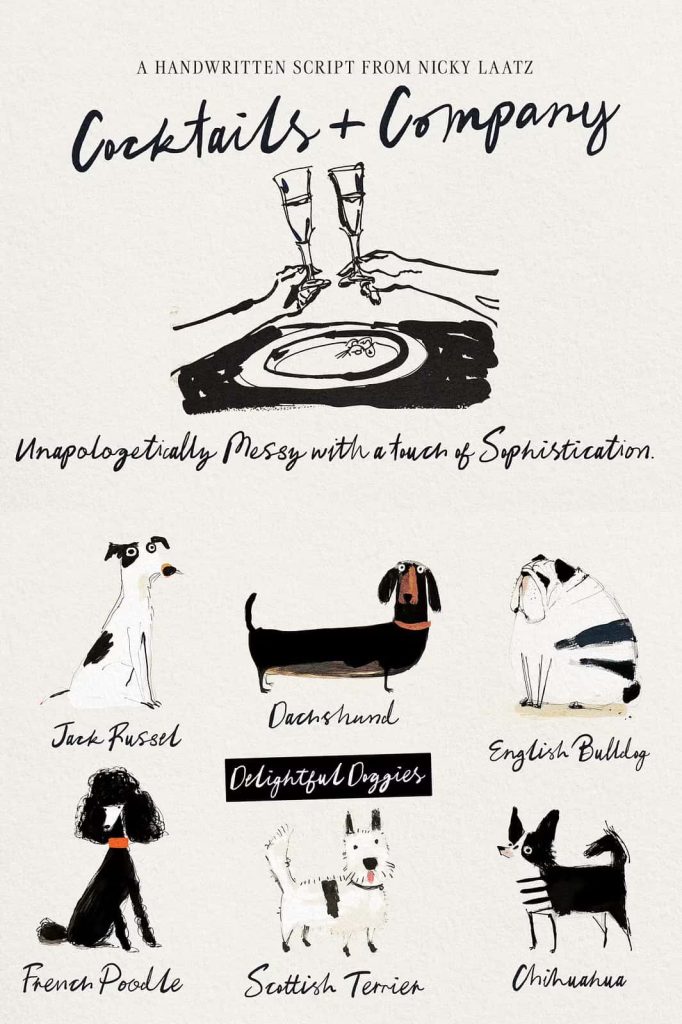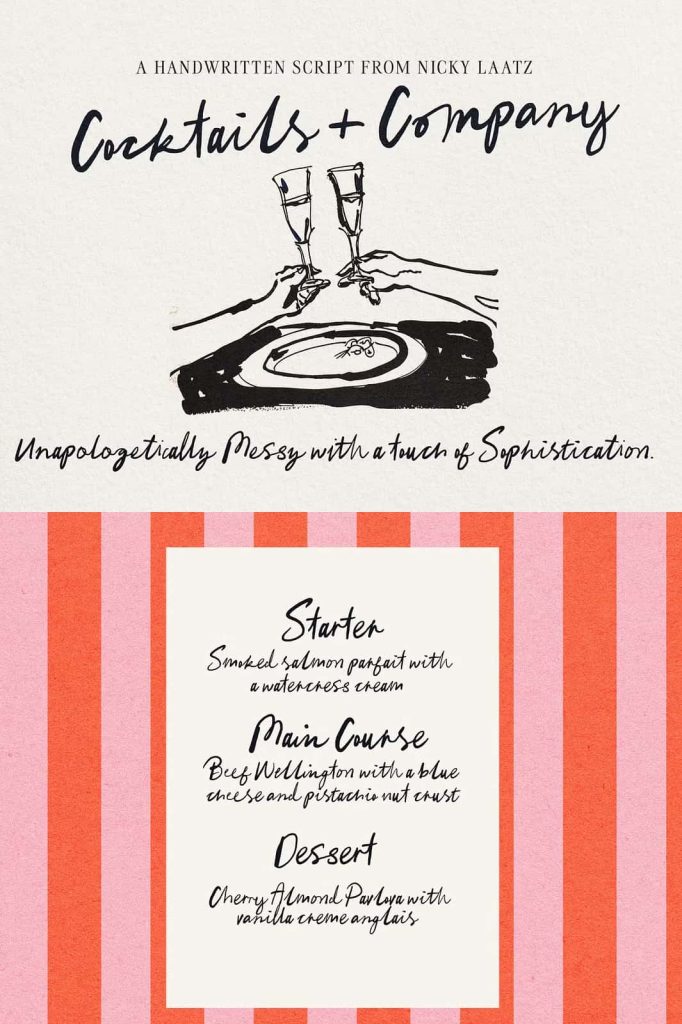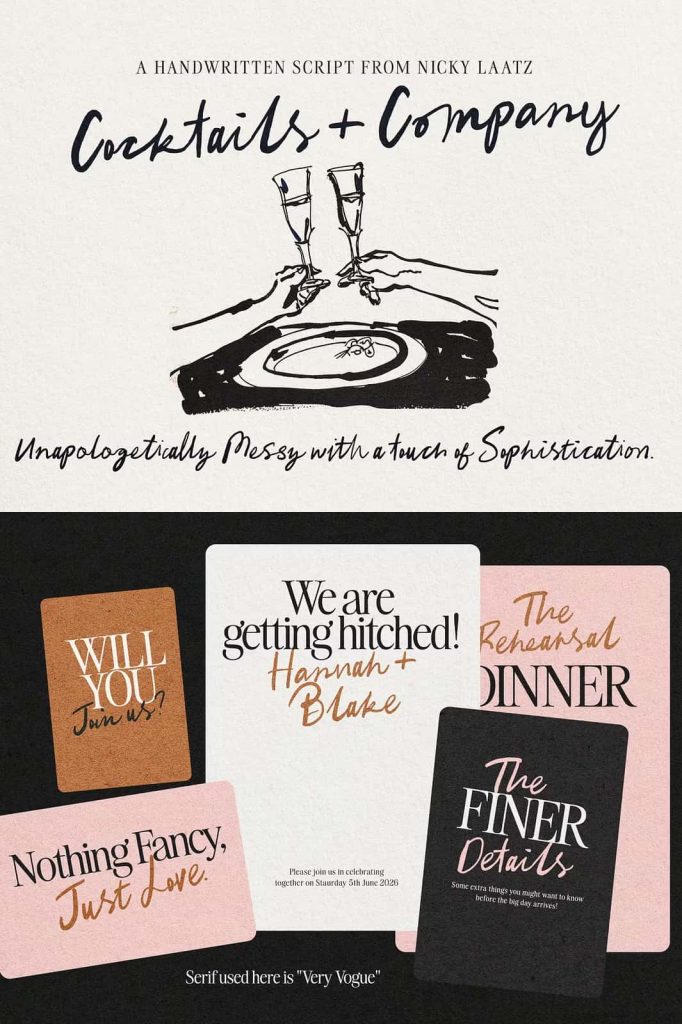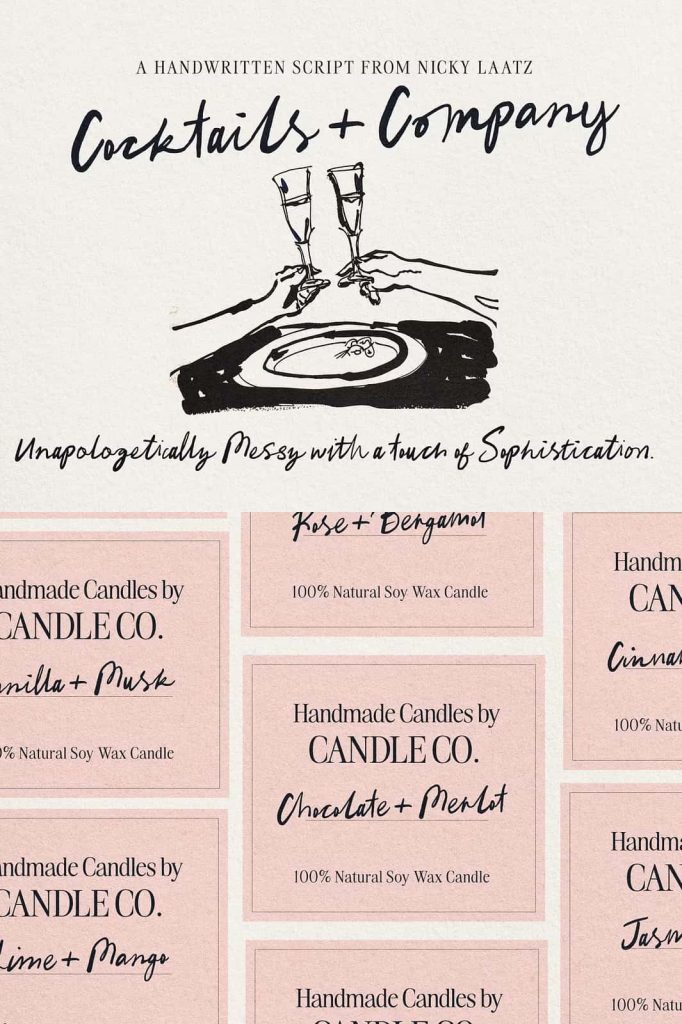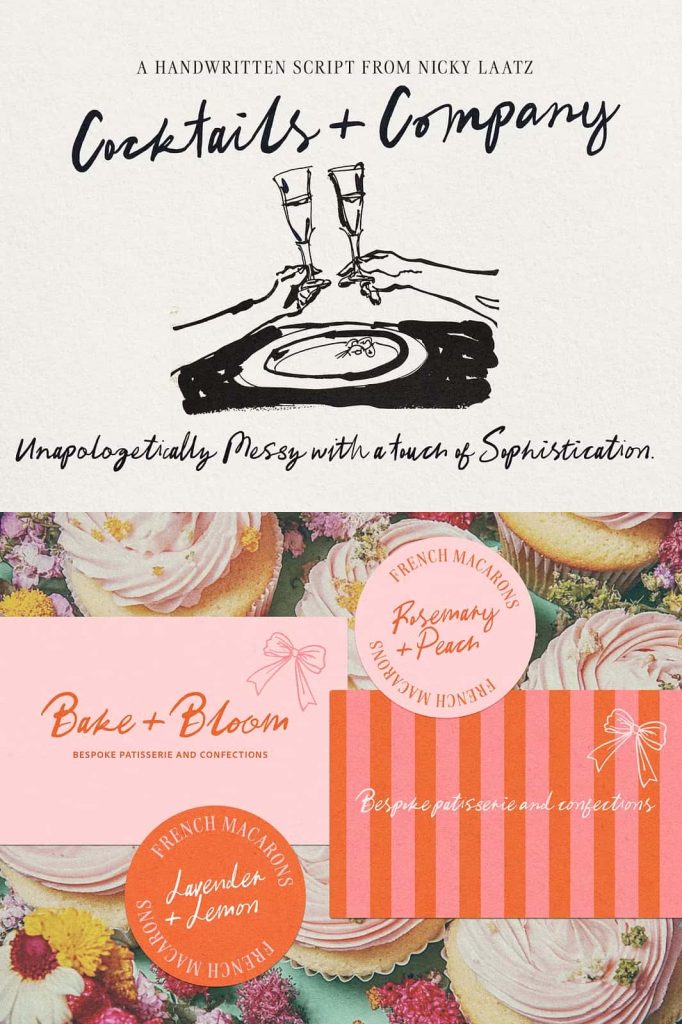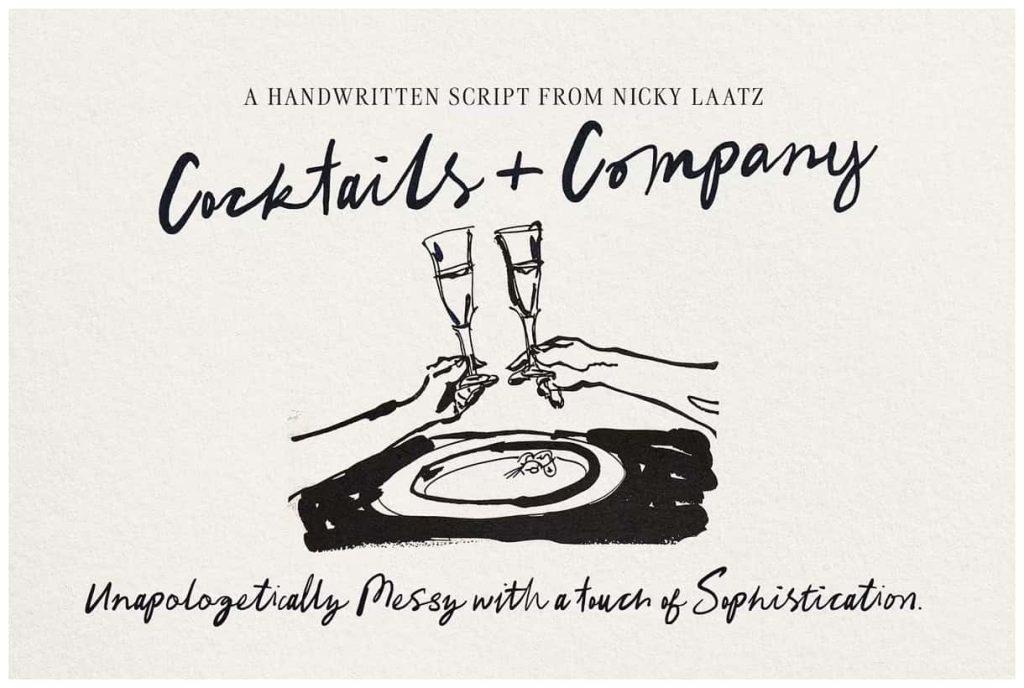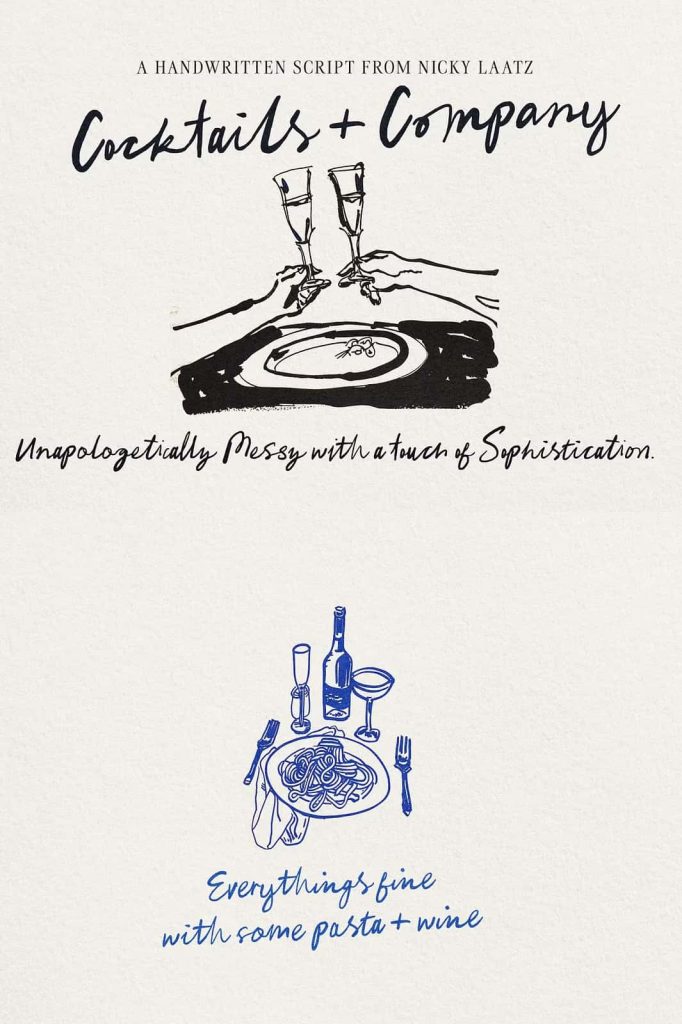
Cocktails and Company is great for invites, casual branding, greeting cards, trendy prints, fun wedding stationery, illustrative works and so much more.